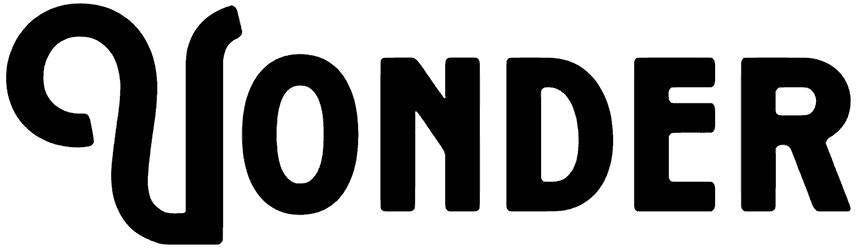
Vonder Font
Vonder font is an excellent font that seems entertaining to the viewers. This retro font has a remarkable style and can be practical for several cases. You may use the Vonder font in posters, magazines, and applications; however, it does not support lowercase letters.
This fancy font has bold letters with smooth edges, creating a friendly vibe. Moreover, they have long, extended tails with curvy shapes, making this font attractive. So give it a chance and create a new experience.